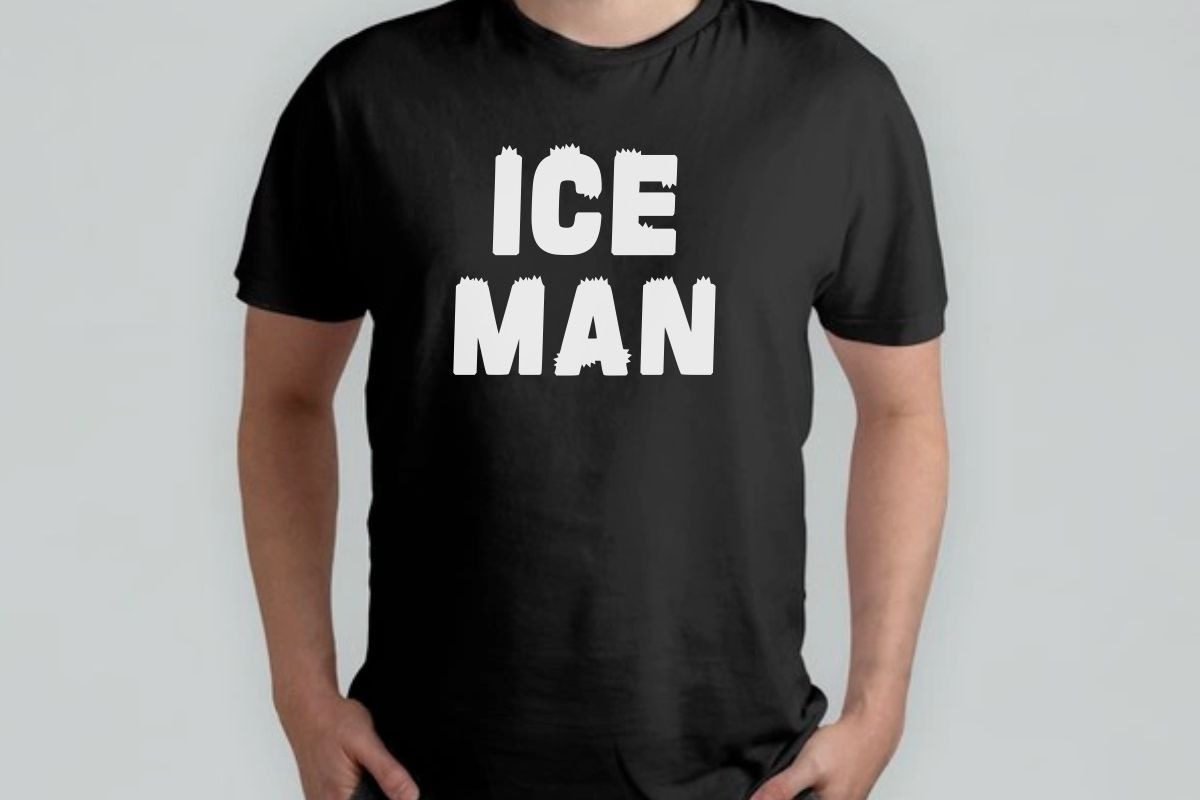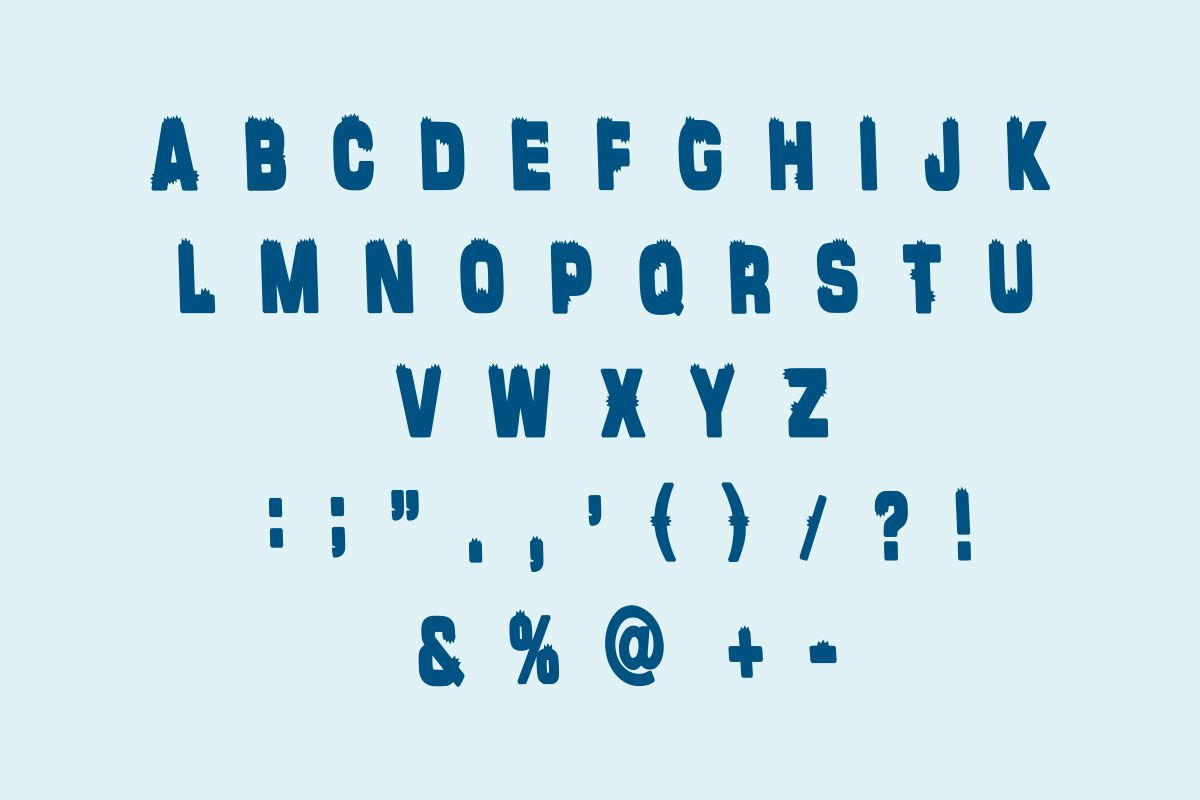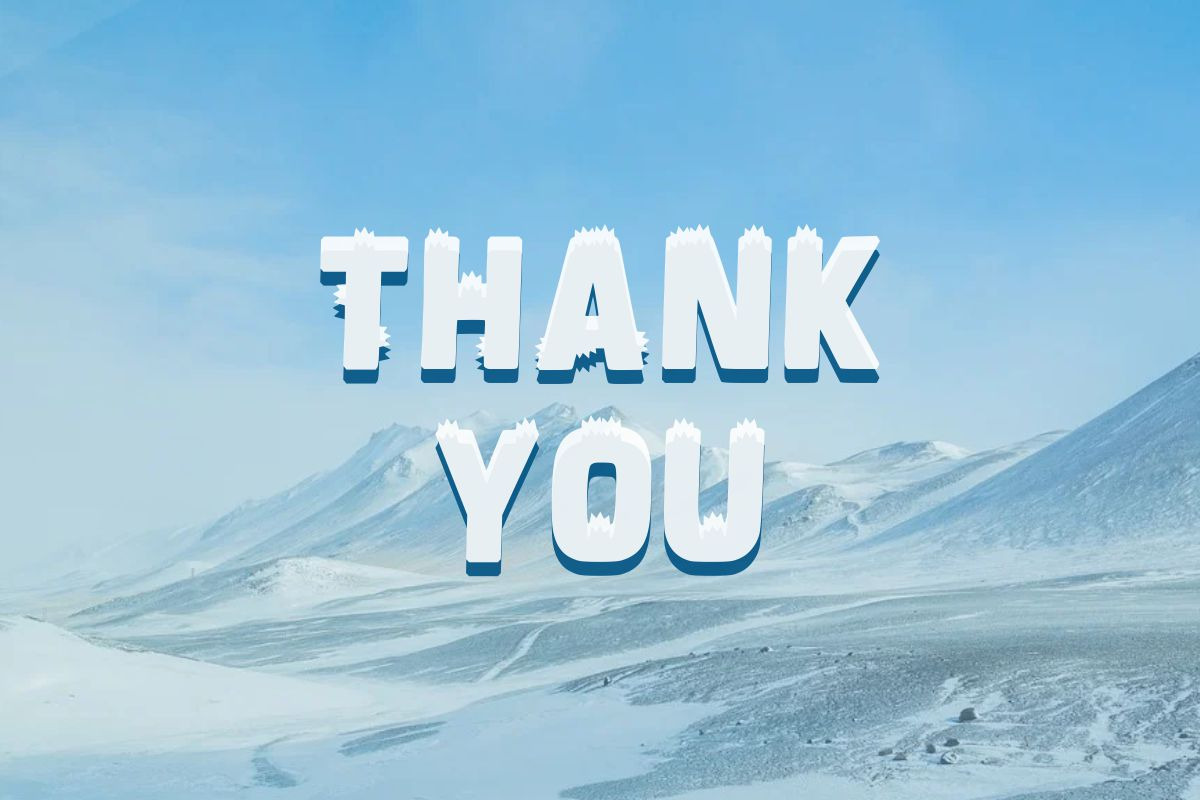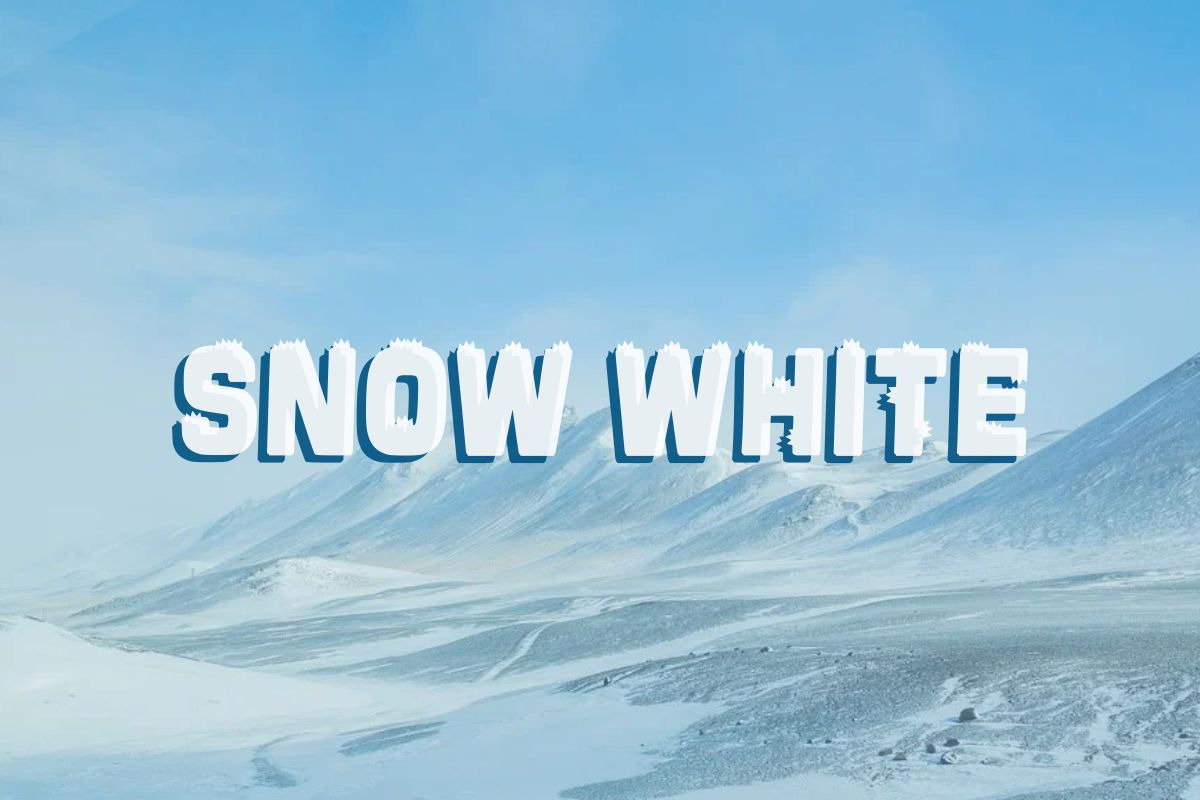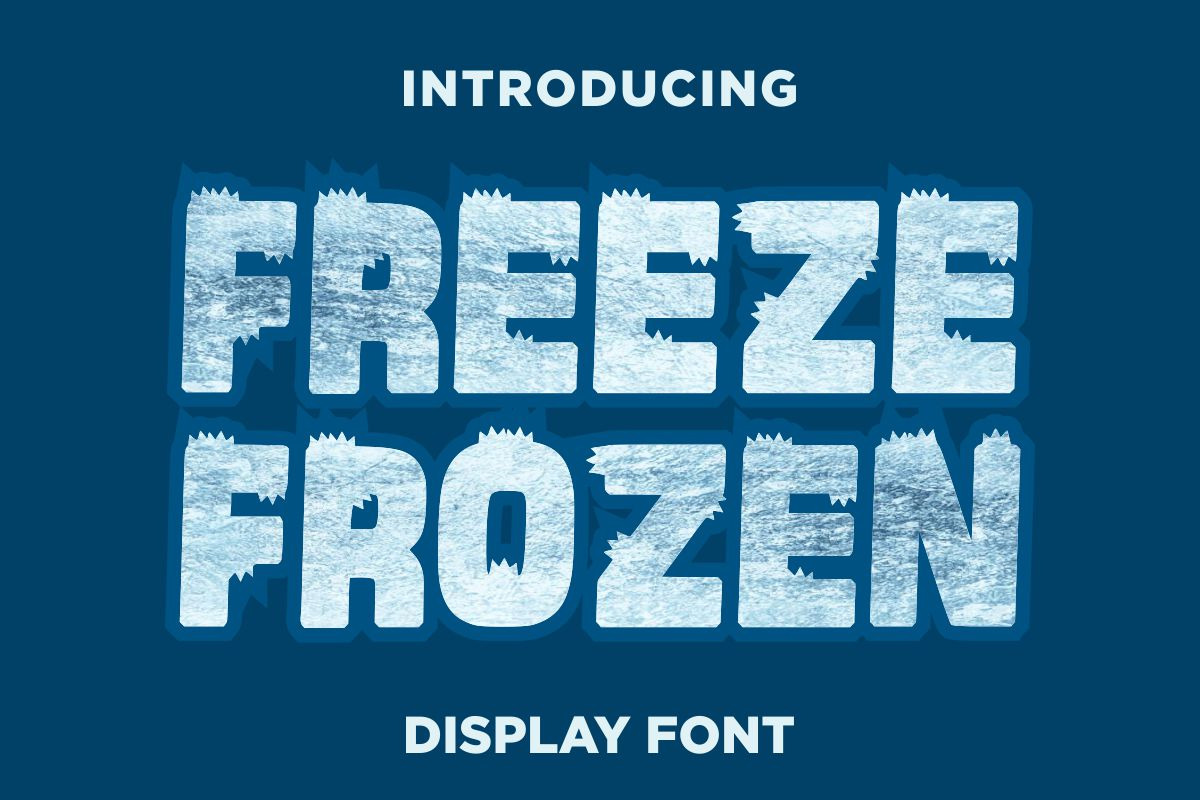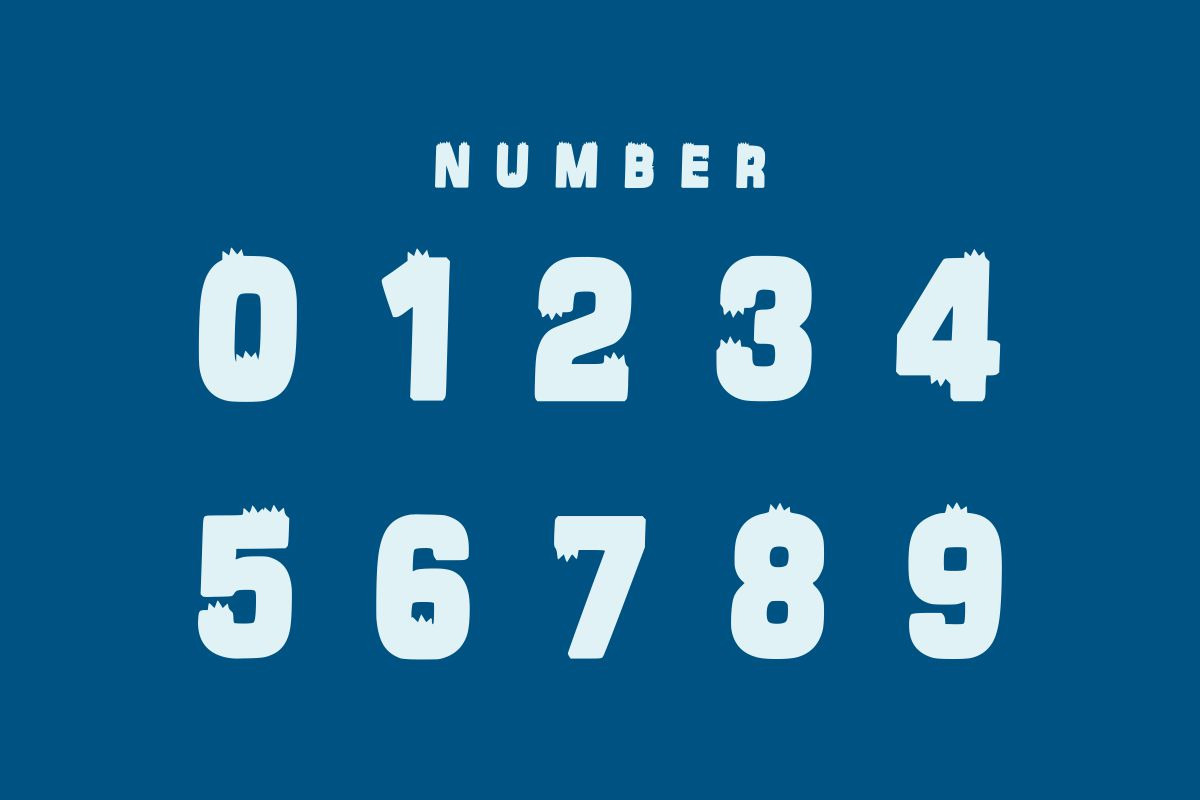
Freeze Frozen
Freeze Frozen is an ice themed decorative font, featuring snow flakes on each character. It is suitable for any product packaging, invitations, quotes, t-shirts, labels, posters, and logos that you wish to create!